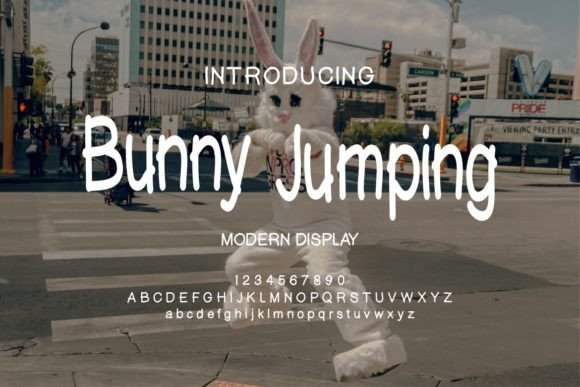
Delve into the whimsical world of Bunny Jumping Font! This captivating display font, crafted by the skilled hands of maikofarazhatta, beckons you to embrace a realm of vintage charm and playful delight. With its playful and friendly demeanor, Bunny Jumping Font is an artistic chameleon, effortlessly adapting to a myriad of creative endeavors.
Visualize the joy-filled crafts adorned with Bunny Jumping Font's vivacious strokes. Picture digital designs that pulsate with vintage flair, presentations that captivate audiences with its unique character, and heartwarming greeting cards that evoke smiles with every word. This versatile font has the innate ability to transform the mundane into the extraordinary.
Beyond its aesthetic allure, Bunny Jumping Font possesses a profound emotional resonance. Its playful curves and charming imperfections evoke a sense of nostalgia, transporting you back to simpler times. Its ability to fuse the past with the present creates a timeless appeal that resonates with audiences of all ages.
Embrace the endless creative possibilities that await with Bunny Jumping Font. Unleash your imagination and embark on a typographic journey that is both captivating and transformative. Allow this remarkable font to elevate your designs, adding a touch of vintage magic to every project you undertake.